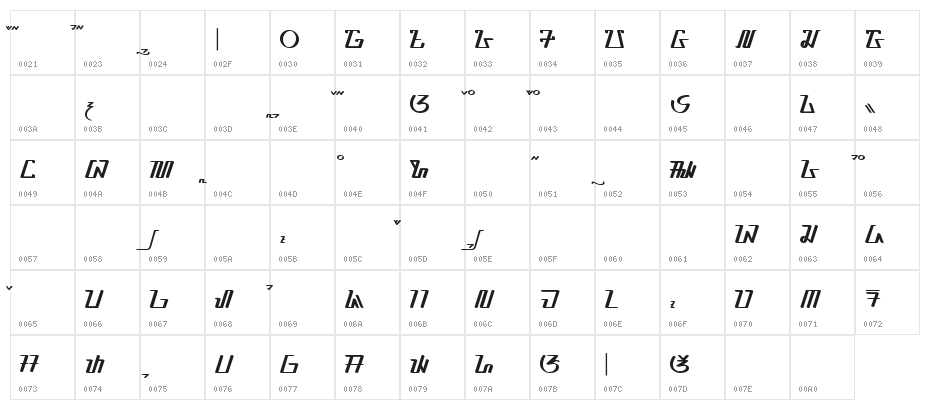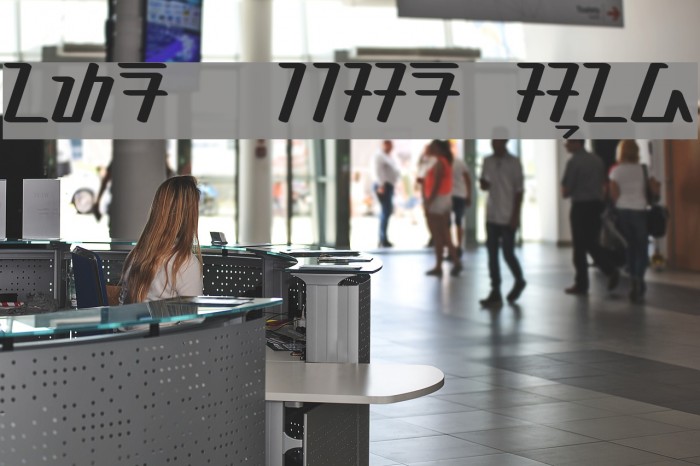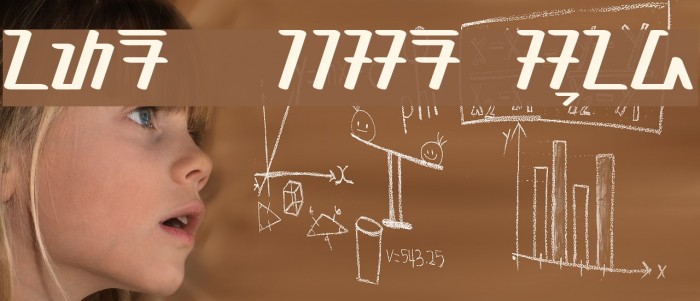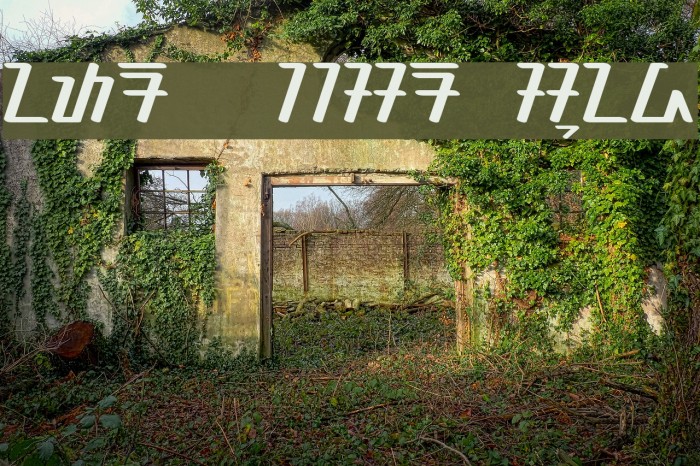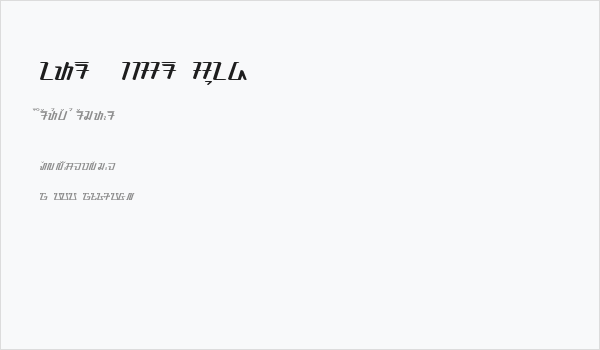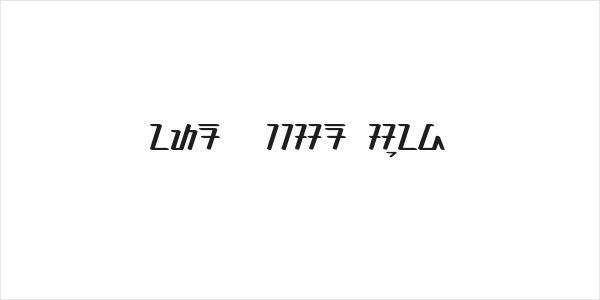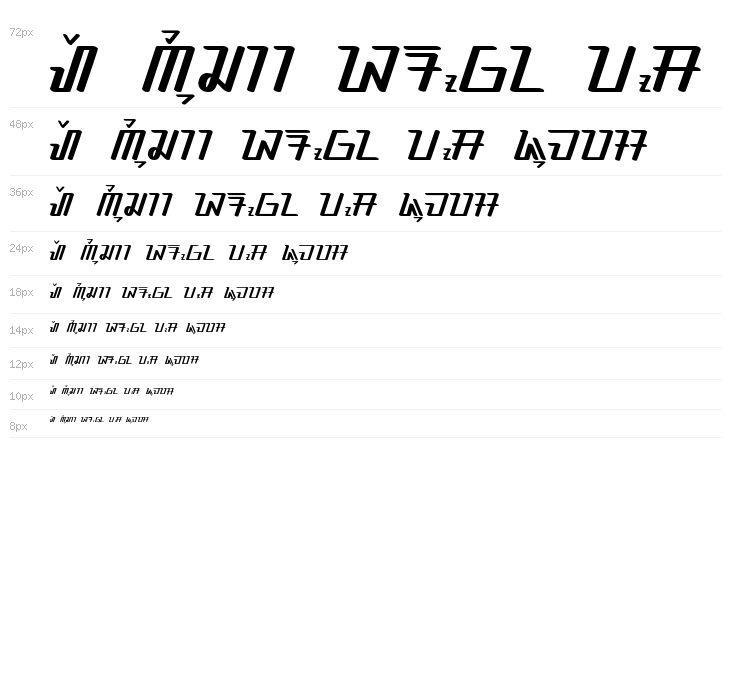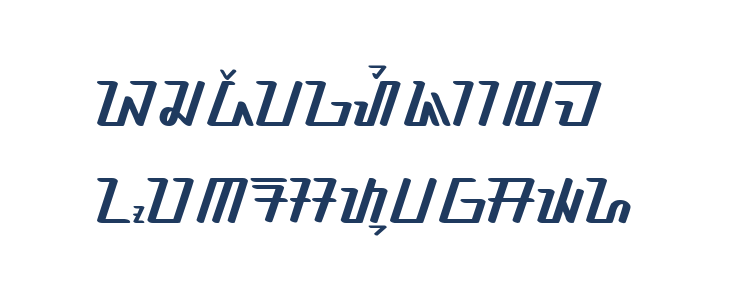
antara - aksara sunda Font
antara - aksara sunda Description
This script is a modern interpretation of the traditional Sundanese script, featuring bold and angular strokes that give it a contemporary feel while maintaining its cultural roots. The characters are distinct and stylized, with a consistent thickness that provides a uniform appearance. The script includes unique diacritical marks that add to its authenticity and cultural significance. The overall design is clean and legible, making it suitable for various applications where a touch of Sundanese heritage is desired.
| Use Case | Logos, Cultural displays, Educational materials |
| Proposed Projects | Ideal for cultural projects, educational materials, and artistic designs that aim to celebrate Sundanese heritage. |